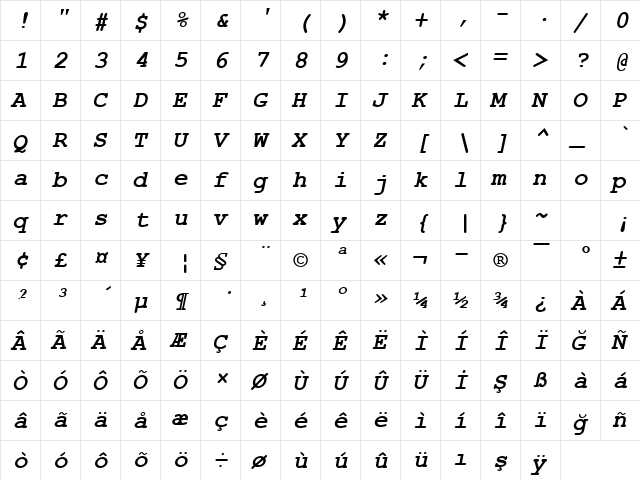
Courier New Digiscream Bold Italic Font Preview
Design Context for Courier New Digiscream Typeface
Courier New Digiscream uses fixed-width spacing throughout, giving it the structured, systematic character associated with coding environments and technical documentation. The dynamic lean of this cut emphasises speed and emphasis in any layout. The heavy weight commands attention and anchors typographic hierarchies.
Pro Tip: Use Courier New Digiscream with slightly increased line-height for extended reading — fixed-width spacing can feel dense in longer passages without extra breathing room.